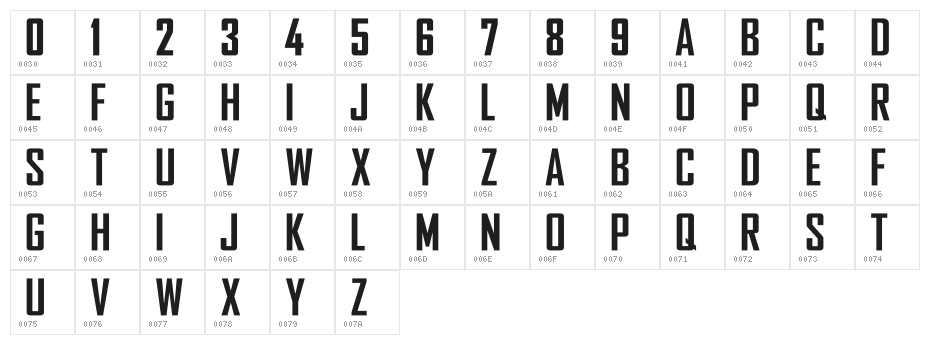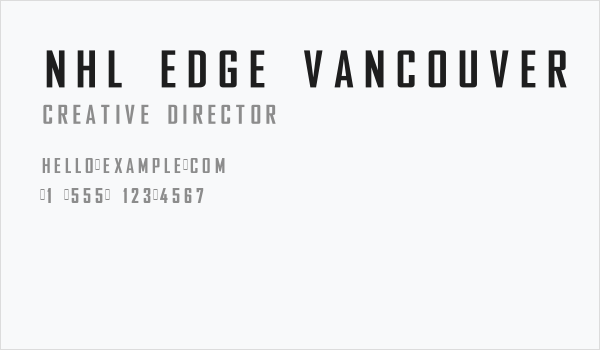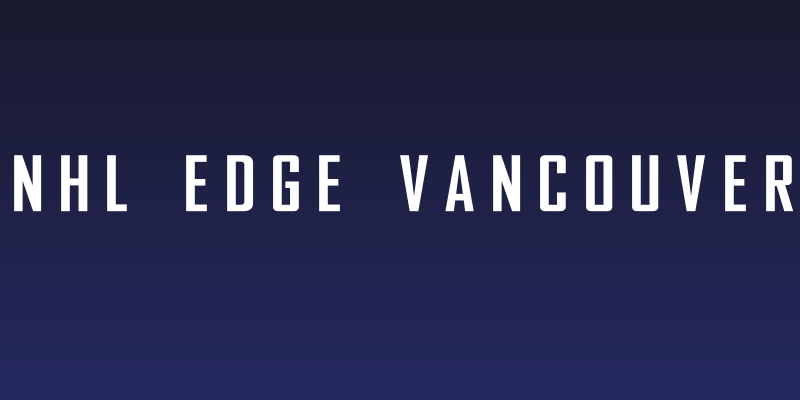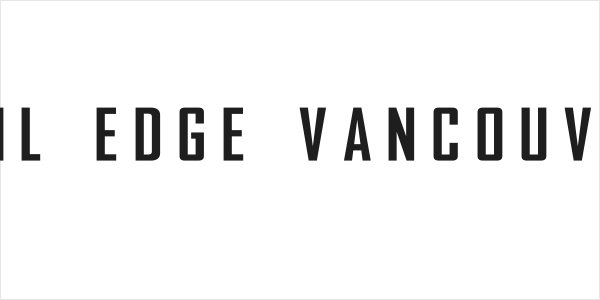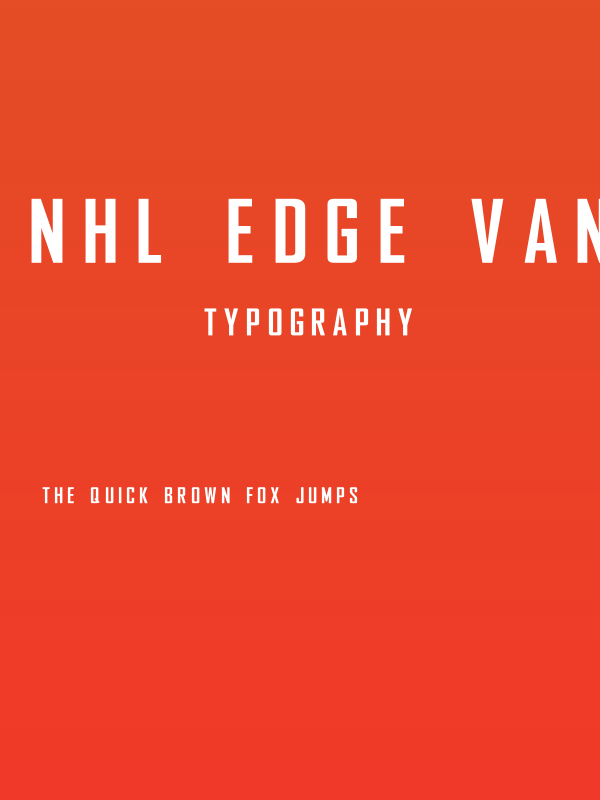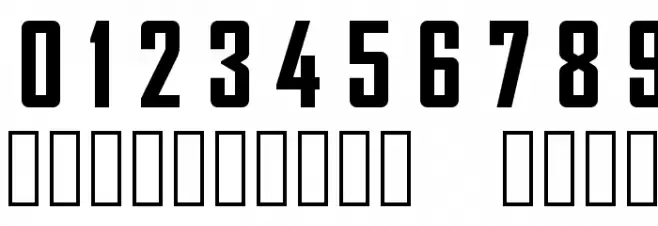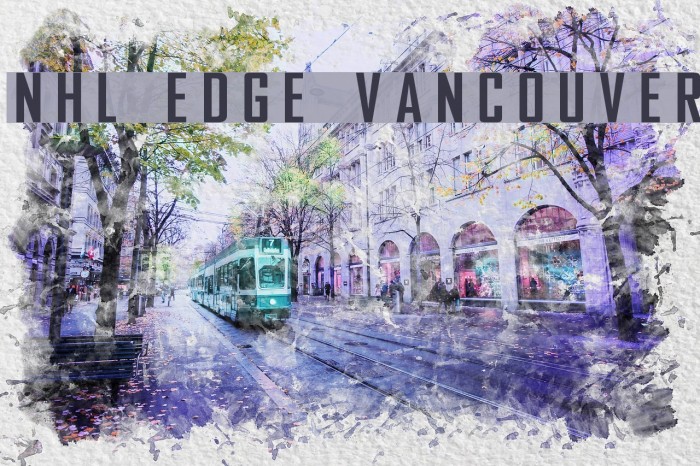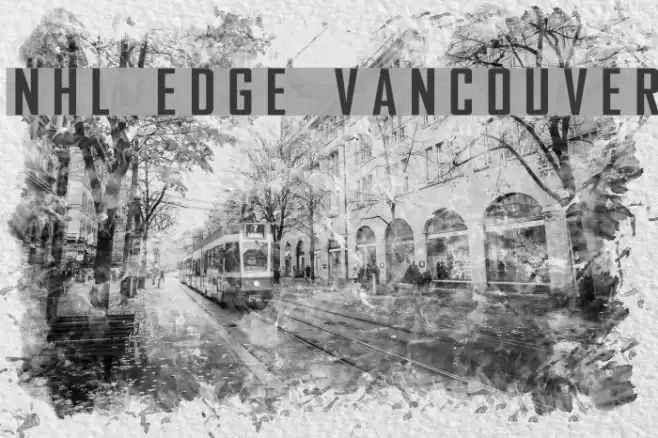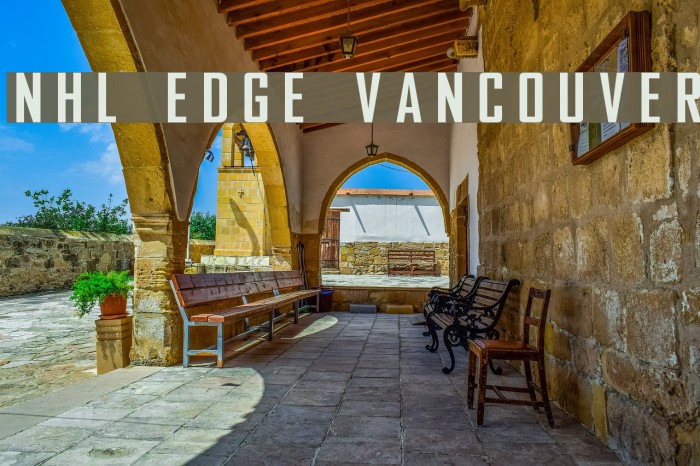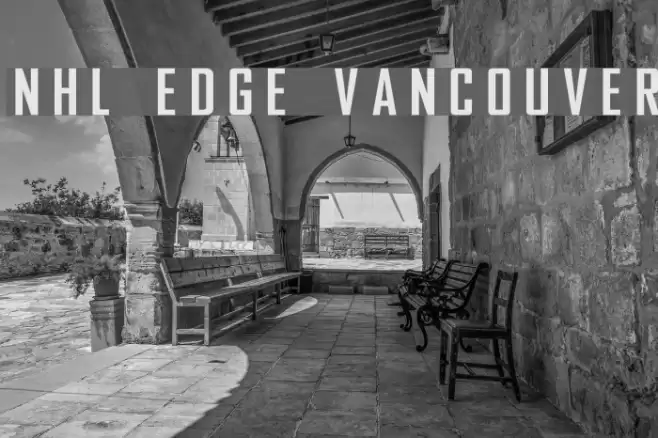
NHL Edge Vancouver Font
NHL Edge Vancouver Description
This font features a bold and modern design with a strong geometric structure. The characters are tall and narrow, giving a condensed appearance that emphasizes verticality. The uppercase letters are uniform in height, with sharp angles and clean lines that convey a sense of strength and precision. The numerals are equally bold, maintaining the same height and style as the letters, ensuring consistency across the typeface. The overall design is sleek and contemporary, suitable for projects that require a striking and impactful visual presence.
| Proposed Projects | Ideal for sports branding, team jerseys, posters, and dynamic headlines. |